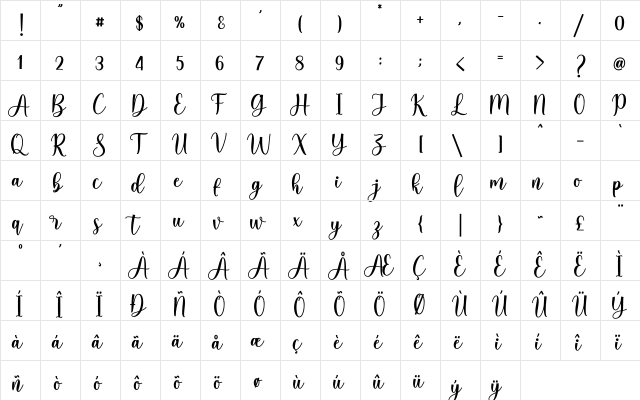
Rachela_DEMO Regular
Design Context for Rachela_DEMO Typeface
Rachela_DEMO is a composed and adaptable typeface that performs quietly and consistently across a wide range of design contexts.